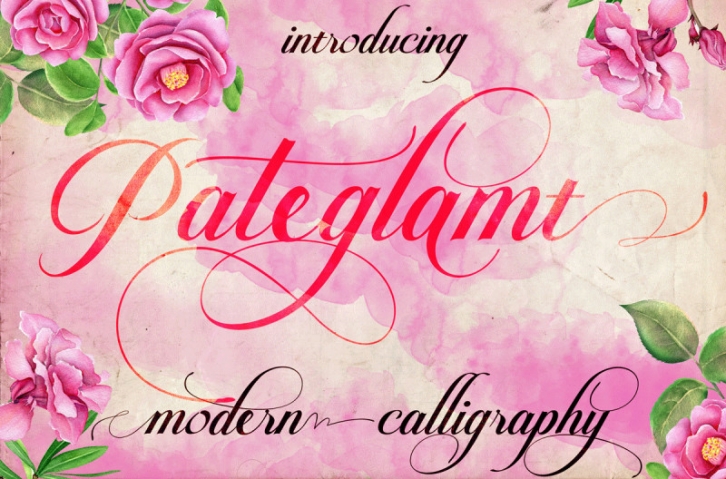
Pateglamt Script is a font was designed by handwriting, and it has a modern and unique forms of calligraphy, the writing style is very natural.
Pateglamt Script Works perfectly for logos, magazines, menus, books, invitations, wedding / greeting cards, packaging, labels, t-shirt etc. All designs you will have a wonderful homemade touch with Pateglamt.
Pateglamt Script have glyphs, have 300+ glyphs and 370+ alternate characters. offers a variety of features such as ligatures, swashes, endings, and many early forms alternately to unleash your creativity and also supported multiple languages. To make the most of the alternatives proposed, using an application that supports Open Type. such as Adobe Illustrator CS, Adobe Indesign and CorelDraw X6-X7, Microsoft Word 2010 or later versions.